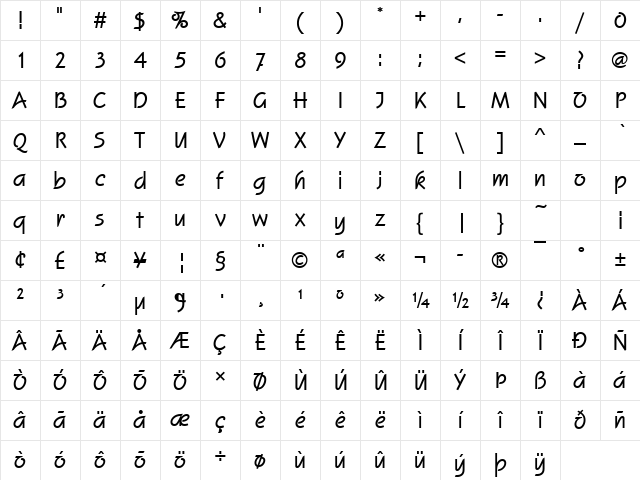
Complete URWStiboriusD Bold glyph index. Displaying only characters natively supported by URWStiboriusD Bold font.
URWStiboriusD is a composed and adaptable typeface that performs quietly and consistently across a wide range of design contexts. Its bold stroke weight gives it real presence on the page.